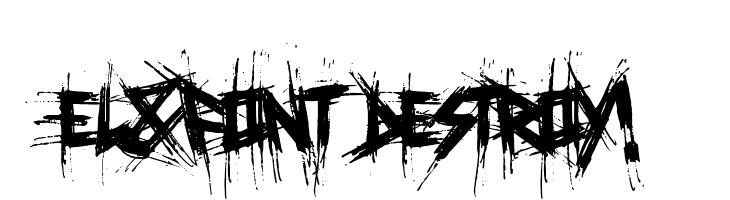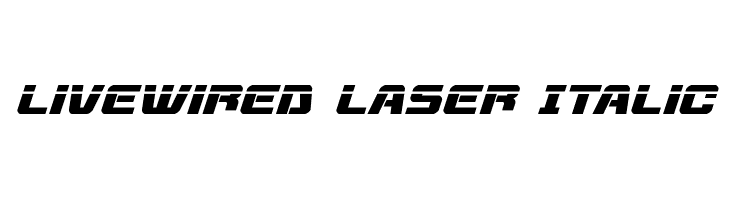
A distressed, chaotic font with sharp, jagged edges and a rebellious aesthetic.
A festive dingbat font with birthday and party-themed illustrations.
A classic, calligraphic font with ornate serifs and elegant curves.
A playful, casual handwritten font with smooth, flowing lines and a dynamic feel.
An artistic and whimsical font with flowing lines and decorative accents.
A bold, condensed font with a dynamic slant and high contrast, perfect for impactful designs.